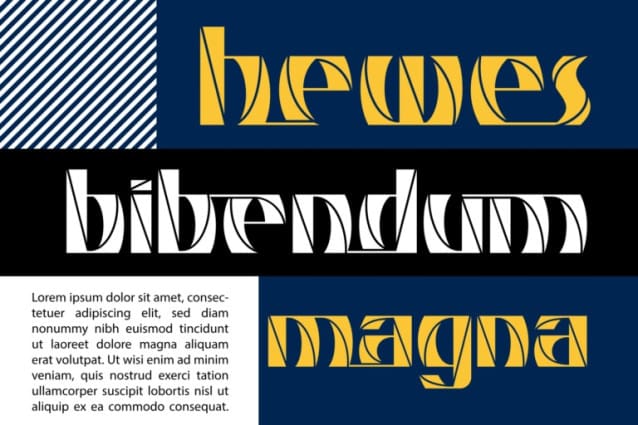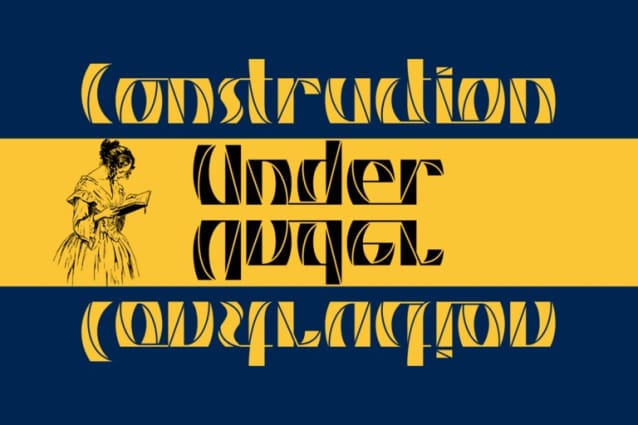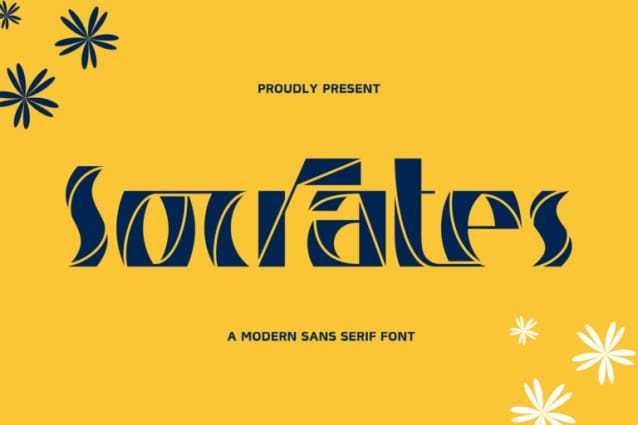
Socrates Display Font
Socrates Display Font is an elegant and sophisticated font inspired by the opulence and geometry of the Art Deco movement, with a modern twist. Its meticulously designed features make it perfect for adding a sense of timeless luxury and bold creativity to any design project. Its sleek lines and geometric style make it perfect for technology branding, sci-fi themes, user interfaces, and creative visuals.
Socrates Display was built with OpenType features and includes 100 ligatures, alternate, numbers, punctuation, and it also supports other languages.